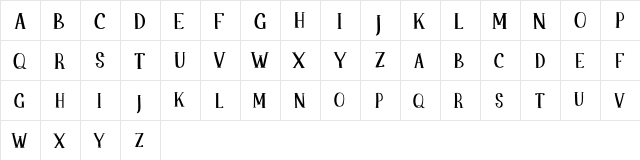
Belanie FREE Regular
Design Context for Belanie FREE Typeface
Belanie FREE takes a measured approach to typography — its balanced proportions and neutral character make it a reliable workhorse for both digital and print work.